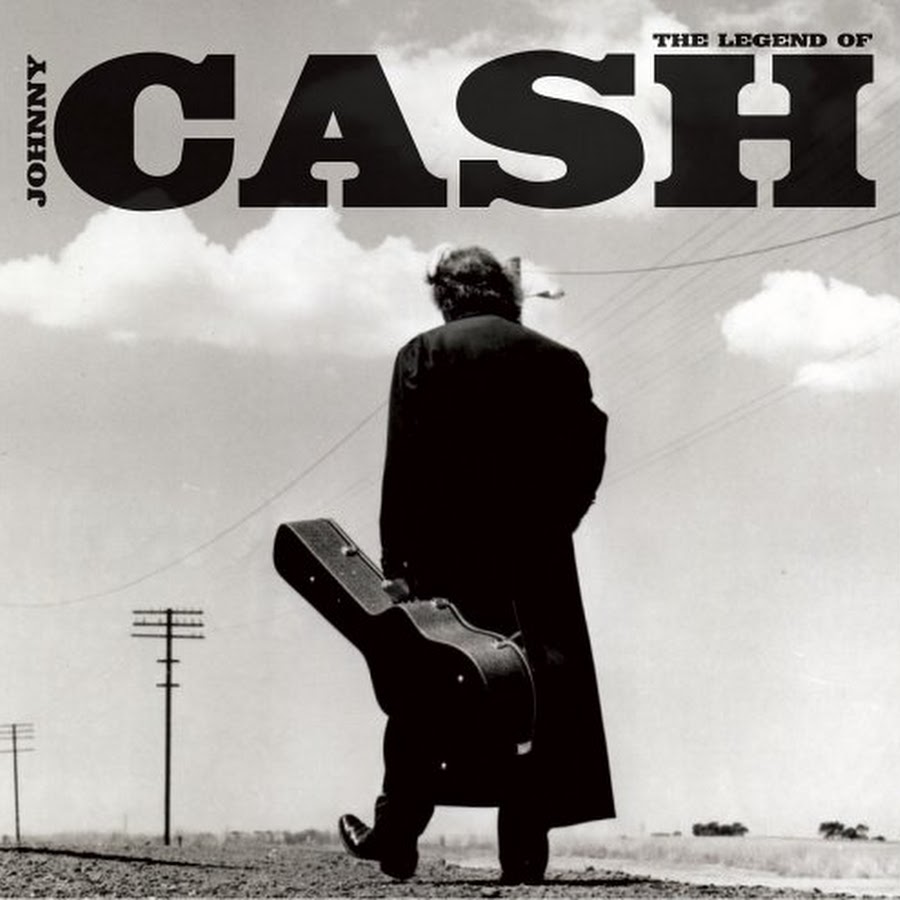
The Legend of Johnny Cash Font
CountryJohnny Cash was an American singer-songwriter and guitarist who was widely considered one of the most influential musicians of the 20th century. The album "The Legend of Johnny Cash" is a compilation of songs from various stages of Johnny Cash's career.